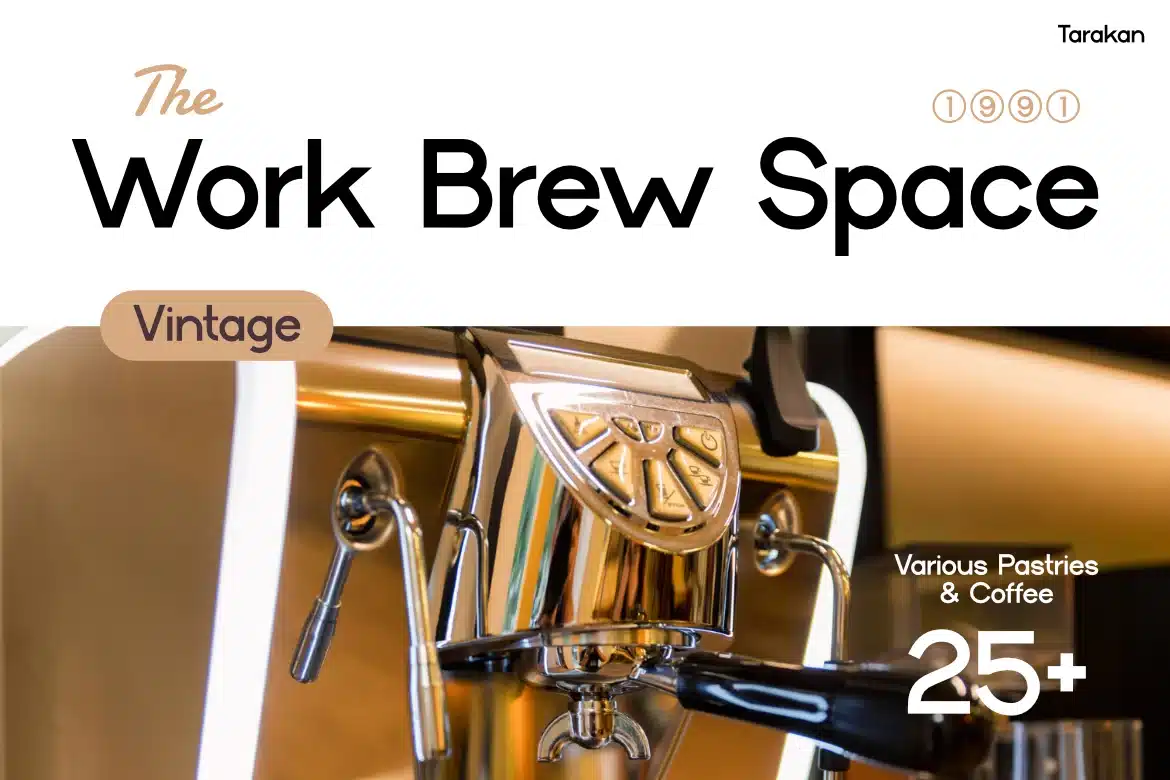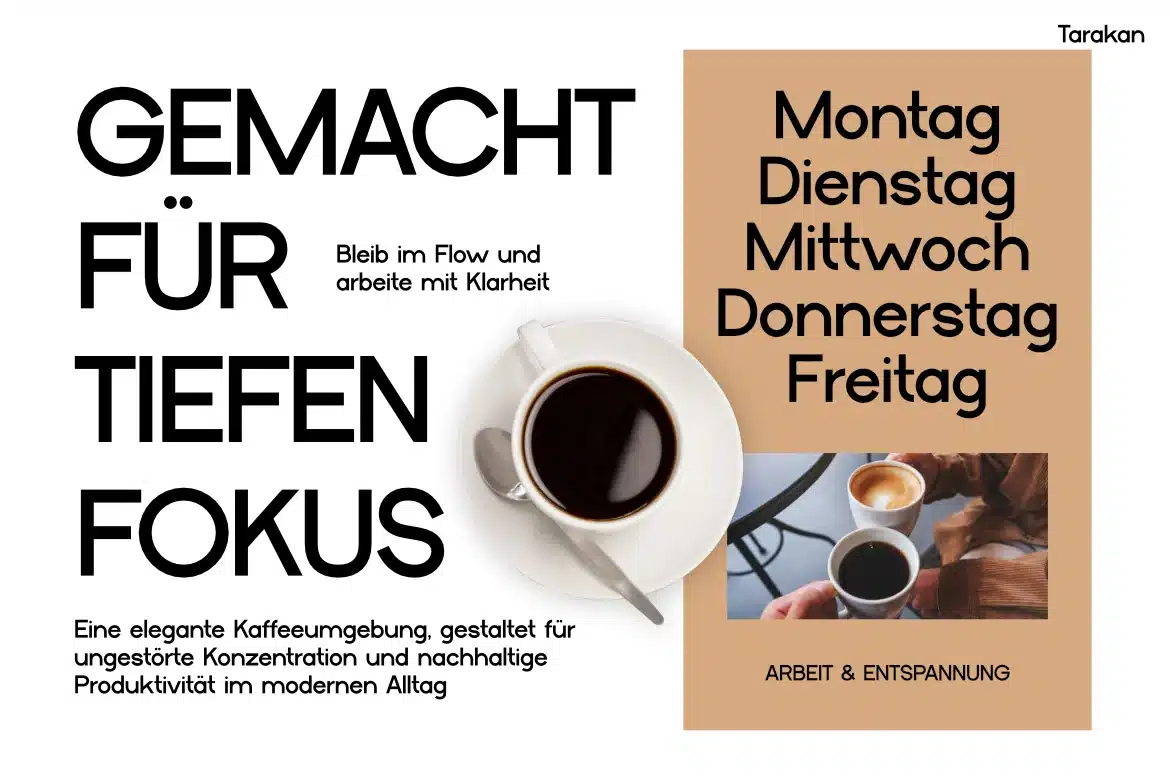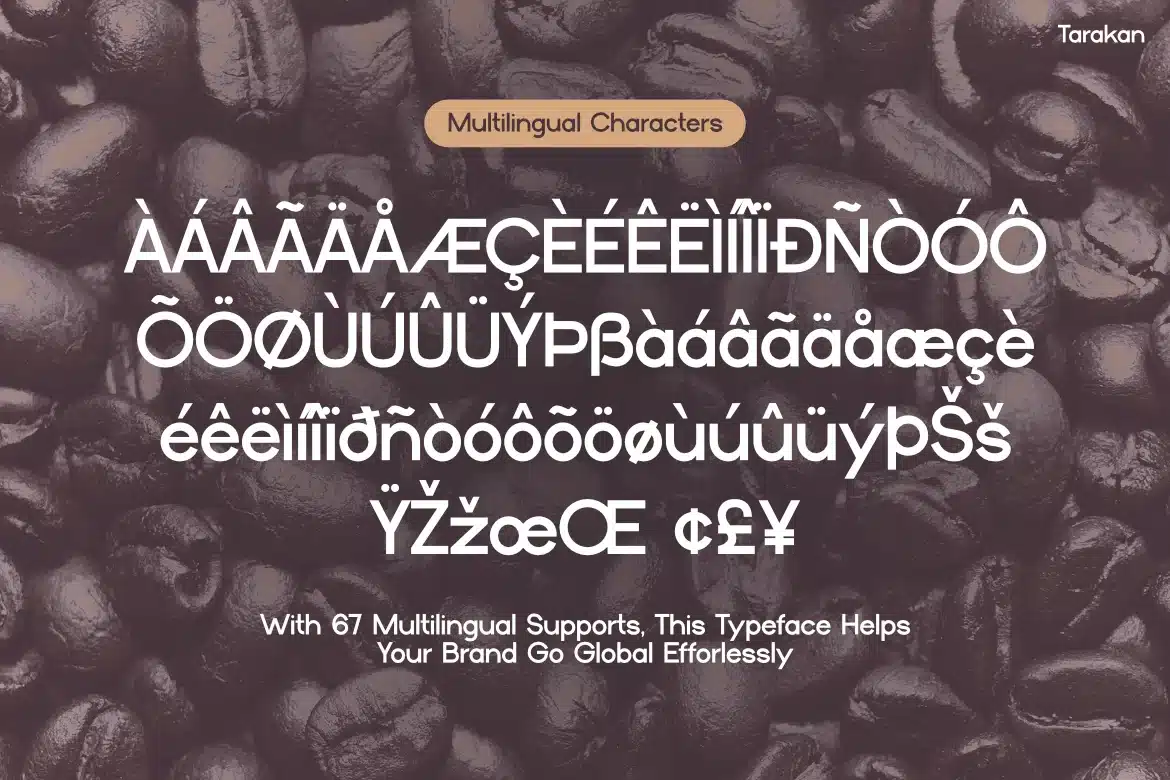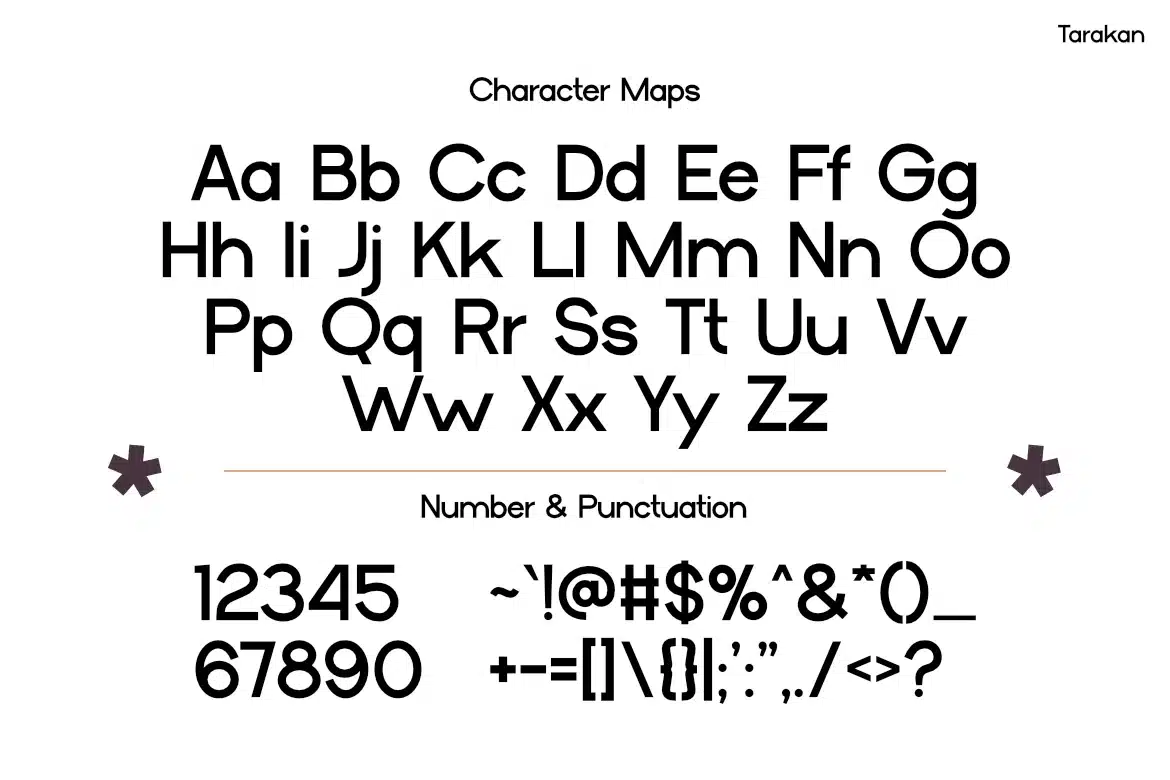
Tarakan – Modern Geometric Display Font
Tarakan is a modern geometric typeface crafted for clean workspace branding and lifestyle visuals, delivering effortless readability through balanced proportions, low contrast strokes, and crisp terminals. Its structured yet approachable letterforms create a calm, confident tone—ideal for contemporary coffee brands, productivity apps, and editorial layouts.
With a minimalist and refined vibe, Tarakan fits seamlessly into modern Instagram feeds, café branding, and digital interfaces. The letterforms lean toward geometric construction with subtle humanist touches, ensuring clarity without feeling rigid. This makes it highly functional for branding systems, social media content, packaging, and even presentation design.
Tarakan speaks directly to designers building modern brands that value clarity and lifestyle aesthetics. Whether you're designing a coffee shop identity, a productivity app UI, or a clean editorial layout, this typeface helps communicate focus, calm, and efficiency. Its visual tone supports attention-grabbing headlines while maintaining readability in longer text—perfect for branding, posters, social media campaigns, and workspace-themed visuals.
Key Features:
Clean Geometric Structure
- Balanced letterforms with consistent proportions
- Low contrast strokes for improved readability
- Sharp yet approachable terminals
Multilingual Versatility
- Supports 67 languages, enabling global branding reach
- Ideal for international brands and cross-market communication
Modern Lifestyle Aesthetic
- Designed for coffee branding, workspace themes, and productivity visuals
- Fits seamlessly into minimalist and contemporary layouts
Highly Functional Design
- Works effectively for headlines, subheadings, and body text
- Maintains clarity across digital and print applications
Bring clarity and modern structure into your next design with Tarakan. Whether you're building a brand, crafting a clean editorial, or designing a standout social media campaign, this typeface delivers the visual confidence your work needs—start creating with precision today.